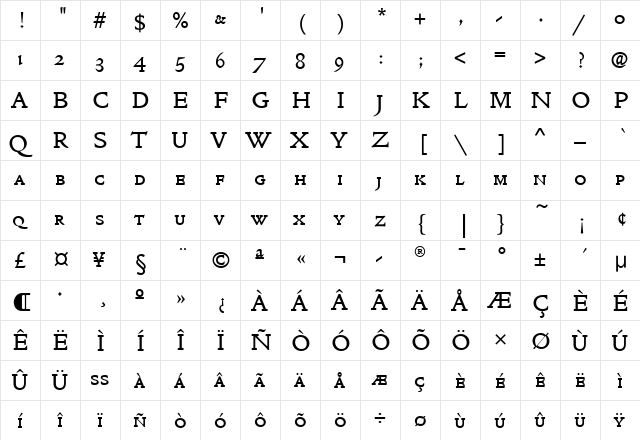
GoldenTypeSCITC Medium
Design Context for GoldenTypeSCITC Typeface
GoldenTypeSCITC is a composed and adaptable typeface that performs quietly and consistently across a wide range of design contexts.